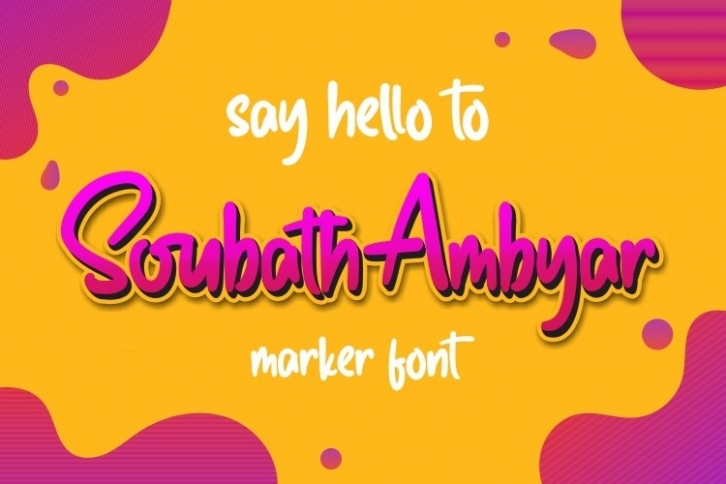
Soubath Ambyar is a great font that was designed by Eknoji. Imagine the amount of combinations you can create using this font! The archive is 2.64 MB and it was released on May 6, 2020. Soubath Ambyar looks beautiful on wedding invitations, greeting cards, logos, posters, labels, t-shirt designs, logos, business cards and is perfect for use in ink or watercolor works, fashion, magazines, packaging and food menus, children's books and more!